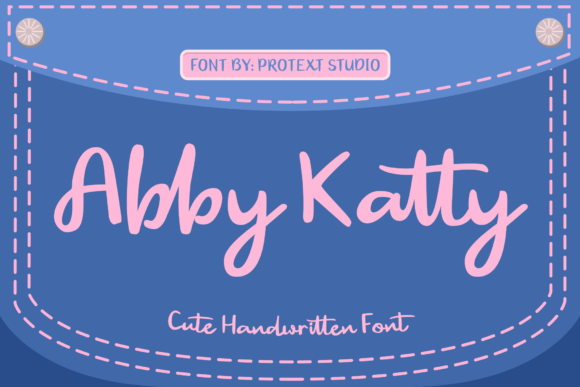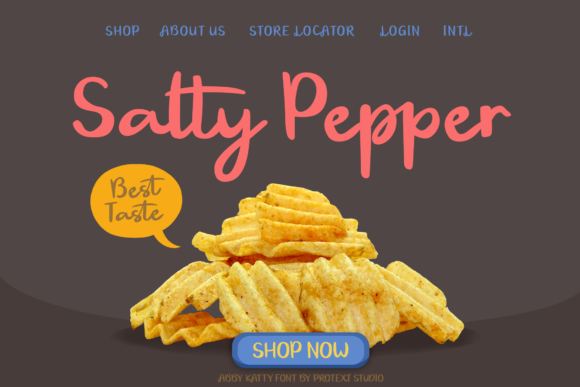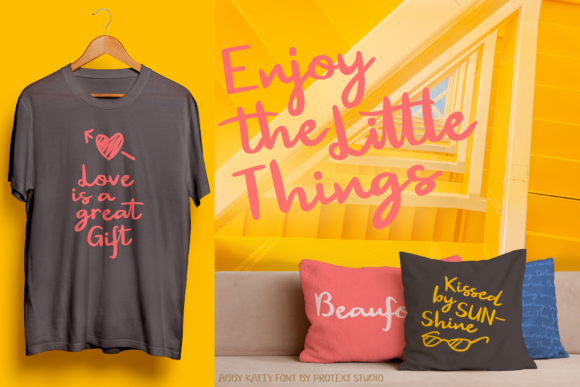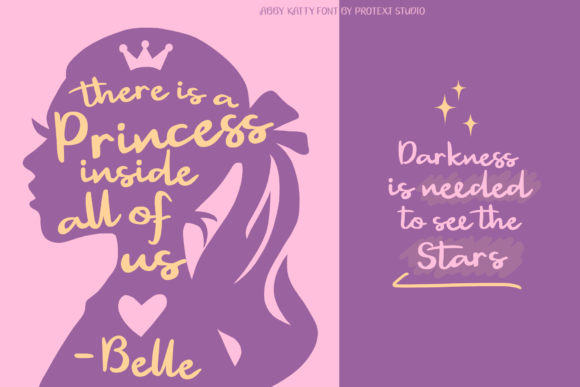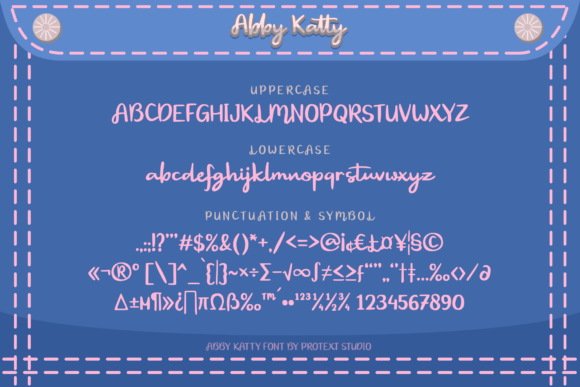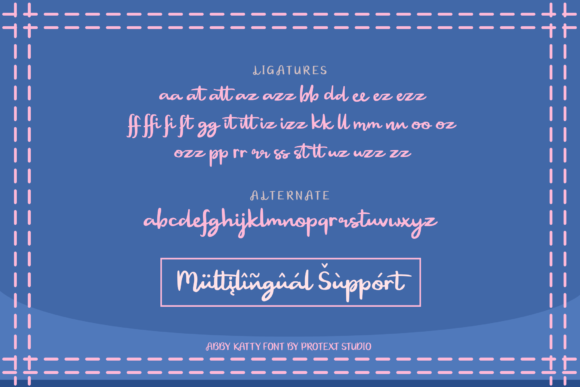
About Abby Katty Font
Abby Katty is an exquisite playful elegant handwritten font, masterfully designed to become a true favorite. It maintains its classy calligraphic influences while feeling contemporary and fresh. This font is PUA encoded which means you can access all of the glyphs and swashes with ease!